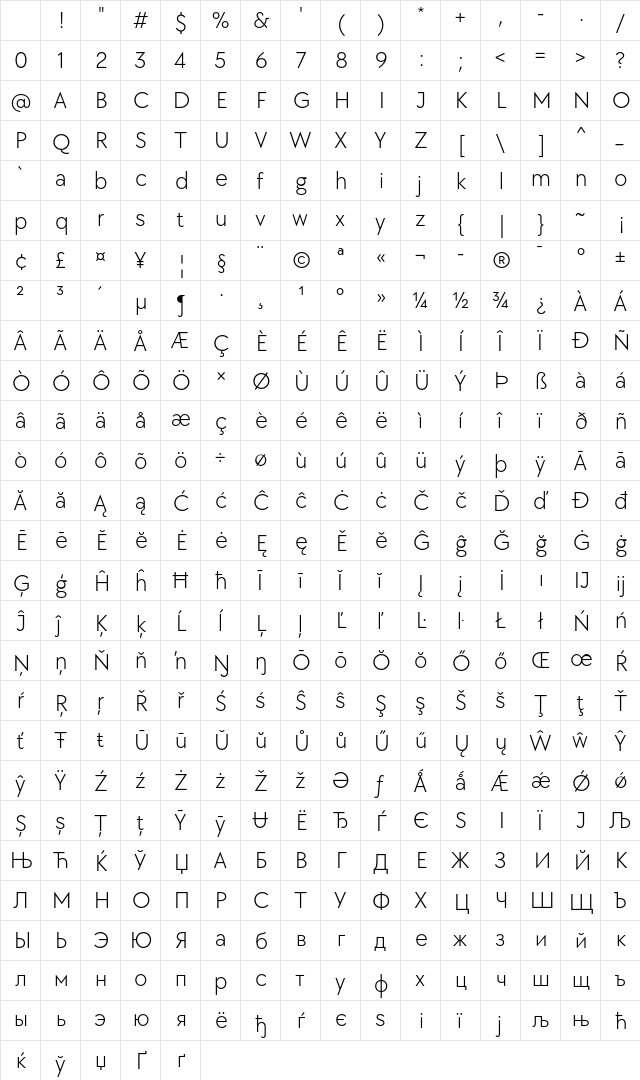
TT Chocolates Trl Light Free Font
TT Chocolates Trl Light
Foundry: Typetype
Designer: TypeType
Design Context for TT Chocolates Trl
TT Chocolates Trl is a composed and adaptable typeface that performs quietly and consistently across a wide range of design contexts. Its slender proportions lend an understated elegance to any composition.